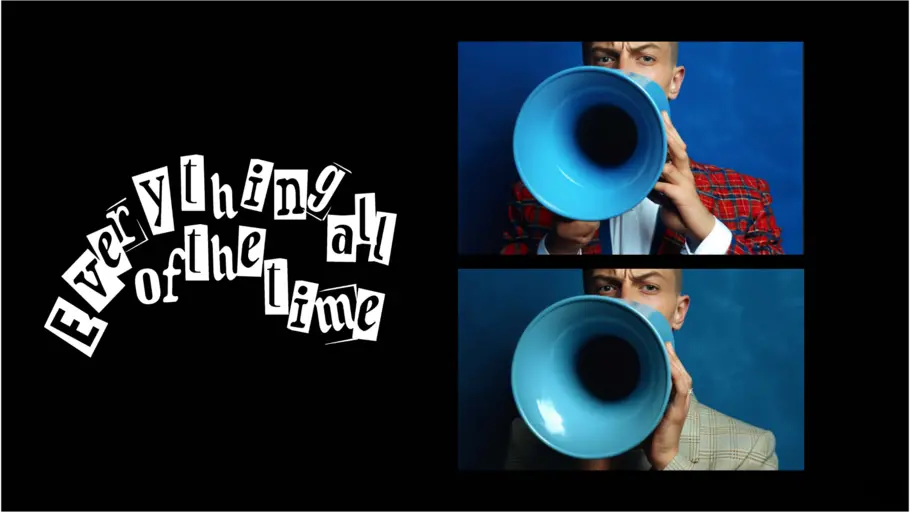
Behind the scenes of the 2024 Type Trends report.
“ Trends tend to be recycled and rediscovered. I don’t believe that a lot of concepts are made completely new these days and it’s not a bad thing, it gives us room to be a little more creative by trying different approaches. ”
Ibrahim Gharib, Graphic Designer, Monotype.
• The 2024 Type Trends report fused typography with music genres, inspired by vinyl record culture.
• Designer Ibz Gharib paired each trend with a genre, supported by AI imagery and 3D animation.
• This creative mix shows how type and music evolve together, encouraging designers to push boundaries.
2024 Type Trends Report Everythingallofthetime
This year, as we explored the intricacies of type and culture with our 2024 Type Trends report, we embarked on a journey inspired by the timeless allure of vinyl records. For the art direction of the report and the campaign, Monotype Graphic Designer, Ibz Gharib, drew from the rich visual language of record sleeves, labels, rave flyers, and genre-specific branding, seeking to convey the essence of music in our exploration of type trends.
The fusion of type and music genres became the cornerstone of Gharib’s approach. Each type trend was meticulously paired with a genre, drawing parallels between the expressive qualities of music and letterforms. Gharib curated typefaces from our extensive library, we envisioned the report as a symphony of design, with each trend resonating with the beats of a different musical genre.
Collaboration was the key to harmony.
Collaboration was at the heart of this endeavor. From partnering with AI specialist Okocha Obasi to generate evocative imagery using MidJourney, to enlisting the expertise of 3D artist Lucian Stuart-Davidson for dynamic animations, we embraced diverse talents to bring our vision to life. Custom lettering and hero imagery by Raissa Pardini added another layer of depth to the narrative, elevating the visual storytelling of the report.
One trend that epitomized our exploration was Everythingallofthetime, a celebration of maximalism in typography. Drawing inspiration from the anarchic spirit of Punk music, we embraced the unconventional, combining disparate fonts with a DIY sensibility. Just as Punk defied conventions in music and fashion, this trend challenges norms in typography, inviting designers to embrace the unexpected.
“Music and type are mediums that will always be produced, reproduced, and remade to sound or look different – modernized and remastered,” said Ibrahim Gharib. “Trends tend to be recycled and rediscovered. I don’t believe that a lot of concepts are made completely new these days and it’s not a bad thing, it gives us room to be a little more creative by trying different approaches.” - Ibz Gharib.
In reflecting on the cyclical nature of trends, we recognize the enduring influence of both music and type. Just as melodies are reimagined and remastered, typography evolves through reinterpretation and reinvention. The familiarity of past trends offers a canvas for creativity, encouraging designers to experiment with new approaches and push boundaries.
At Monotype, our commitment to innovation is matched only by our reverence for tradition. As we navigate the ever-changing landscape of design, we remain dedicated to championing creativity and pushing the boundaries of typographic expression. In the intersection of type and culture, we find endless possibilities, each trend is a testament to the enduring power of design to inspire, provoke, and resonate with audiences everywhere.
Bringing motion into play.
“Working with Ibz behind the spinning records was a collaborative effort aimed at correlating music and visuals, a process I haven’t experienced in quite some time,” said Almas Ahmad, Lead Animator at Monotype. ”Ibz provided all the necessary artwork and together we conceived the idea of showcasing the vinyl on the poster, which had a significant impact on the final animation.”
The motion design animation was a dynamic journey through typography and music, with visuals inspired by vinyl records and music culture.
“The art direction for the Type Trends report centered on maintaining its originality and concept while embracing the dynamic nature of typography,” Ibrahim said. “I aimed for abstract animations to complement the abstract type, ensuring a visually engaging experience. Inspired by the mixtape/remix concept, the design echoed the versatile blend of trends, much like tracks on a mixtape, capturing the essence of typographic diversity and innovation. Each trend serves as a unique ‘track,’ contributing its own flavor and personality to the overall composition.”
Overall, the motion design animation encapsulates the essence of the Type Trends report, celebrating the fusion of typography and music while showcasing the collaborative spirit and innovative approach of Monotype’s design team.